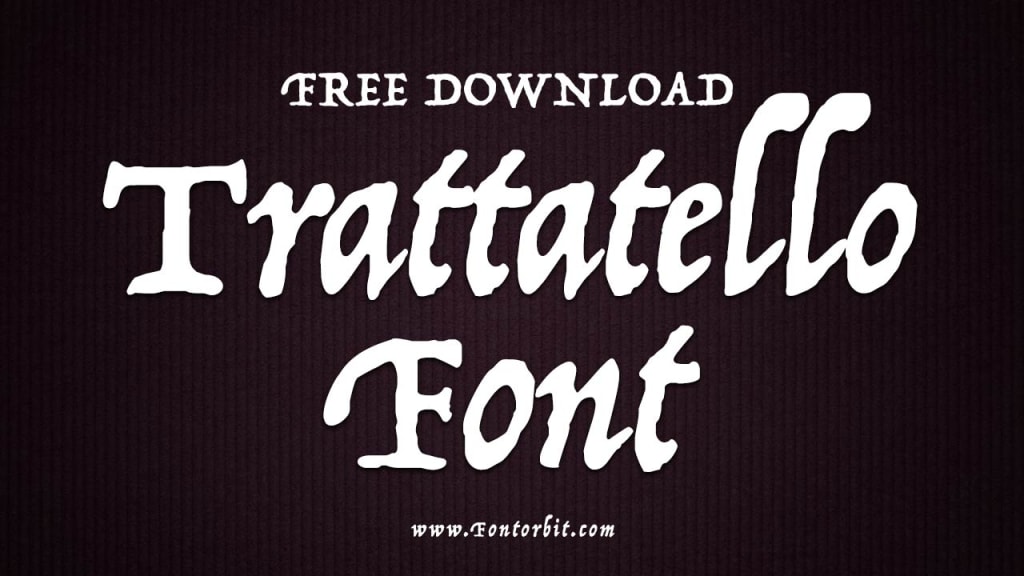
Trattatello Font: A Classic Typeface with Timeless Appeal
Trattatello Font
Typography enthusiasts and designers often look for fonts that blend elegance with a touch of rustic charm. Trattatello is one such font that has managed to capture the attention of professionals and amateurs alike.
With its unique aesthetic and historical undertones, this typeface has become a popular choice for various design projects. In this article, we delve into the origins, features, applications, and tips for using the Trattatello font effectively.
Origins of Trattatello Font
Trattatello, an Italian word meaning "little treatise," is a typeface designed to evoke the hand-lettered feel of historical manuscripts.
Created by Apple, this serif font is included as part of macOS and iOS systems, making it easily accessible to millions of users. Its design draws inspiration from the classical calligraphy of the Renaissance period, lending it a timeless and sophisticated look.
Key Features of Trattatello
Handwritten Style: Trattatello mimics the imperfections and organic strokes of handwritten text, giving it an authentic and artistic appearance.
Serif Accents: The subtle serifs provide a structured yet elegant framework to the font, making it versatile for different use cases.
Legibility: Despite its ornate design, Trattatello maintains excellent legibility, even at smaller sizes.
Character Set: The font supports a wide range of characters, including numerals, punctuation, and accented letters, which makes it suitable for multilingual projects.
Applications of Trattatello Font
Trattatello's unique blend of historical and modern aesthetics makes it ideal for:
Logo Design: The font's distinctive look helps create memorable brand identities.
Wedding Invitations: Its calligraphic style adds a personal and romantic touch.
Book Covers: Trattatello works well for genres like historical fiction and fantasy.
Posters and Flyers: The font’s bold strokes make it stand out in print materials.
Web Design: It adds a touch of elegance to headers and banners.
Tips for Using Trattatello Effectively
Pairing: Combine Trattatello with clean and modern sans-serif fonts like Helvetica or Arial to create a balanced design.
Spacing: Ensure adequate line spacing to enhance readability, especially in body text.
Color Selection: Use contrasting colors to highlight the intricate details of the font.
Context: Avoid overusing Trattatello in projects requiring a minimalist or futuristic aesthetic.
Conclusion
Trattatello is a versatile and aesthetically pleasing typeface that bridges the gap between traditional calligraphy and contemporary design needs.
Its timeless appeal and unique features make it a valuable addition to any designer’s toolkit. Whether you’re working on a sophisticated logo, an elegant invitation, or an artistic web design, Trattatello can elevate your project to new heights.
FAQs about Trattatello Font
1. What is the Trattatello font best used for?
Trattatello is best suited for projects that require a touch of elegance and historical charm, such as invitations, logos, book covers, and decorative headers.
3. Can Trattatello be used for body text?
While Trattatello is legible, its decorative nature makes it more suitable for headlines and short text rather than lengthy body content.
4. What fonts pair well with Trattatello?
Modern sans-serif fonts like Helvetica, Arial, and Futura pair well with Trattatello, creating a balanced and visually appealing contrast.
5. Does Trattatello support multiple languages?
Yes, Trattatello has an extensive character set that supports accented letters and symbols, making it suitable for multilingual designs.